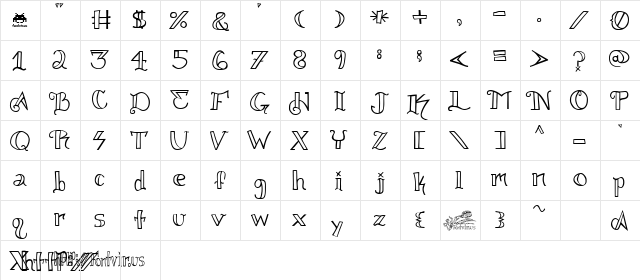
knuckle.tatz Regular
| Foundry | fontvir.us |
| Designer | xero harrison |
Design Context for knuckle.tatz Typeface
knuckle.tatz is a composed and adaptable typeface that performs quietly and consistently across a wide range of design contexts.